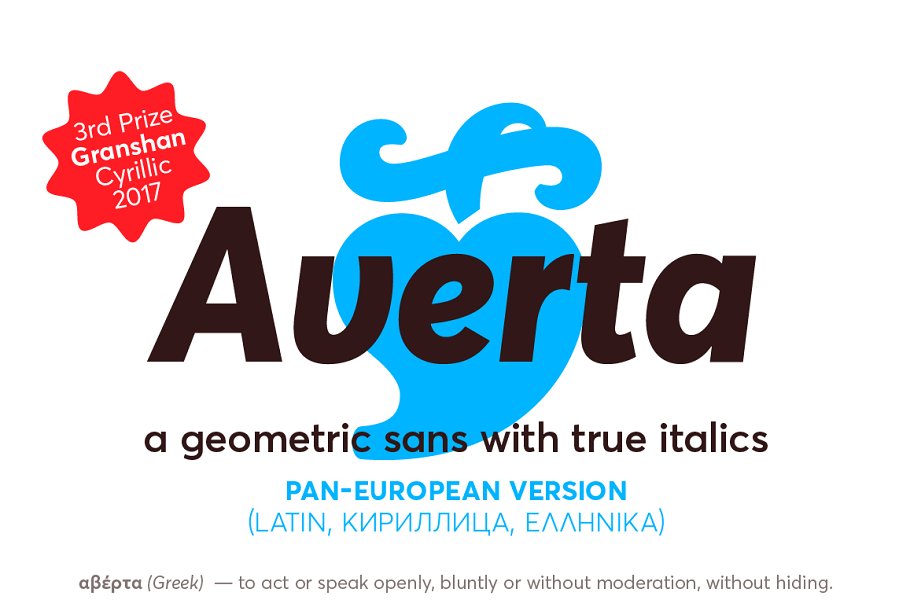
About the Averta PE Latin Greek Cyrillic Font
Bringing together features from early European grotesques and American gothics, Kostas Bartokas’ Averta (Greek: ‘αβέρτα’ – to act or speak openly, bluntly or without moderation, without hiding) is a new geometric sans serif family with a simplistic, yet appealing, personality, The purely geometric rounds, open apertures, and its low contrast strokes manage to express an unmoderated, straightforward tone resulting in a modernist, neutral and friendly typeface
Averta is intended for use in a variety of media, The central styles (Light through Bold) are drawn to perform at text sizes, while the extremes are spaced tighter to form more coherent headlines, The dynamism of the true italics adds a complementary touch to the whole family and provides extra versatility, making Averta an excellent tool for a range of uses, from signage to branding and editorial design
Take advantage of Averta’s extended OpenType features including alternate glyphs, small caps, fractions, case sensitive forms, contextual alternates, oldstyle and lining (proportional and tabular) numerals, small cap numerals, numerators/denominators, superiors/inferiors, and a variety of symbols
This version of Averta (Pan-European) comes in eight weights with matching italics and supports over two hundred languages with an extended Latin, Cyrillic (Russian, Bulgarian, and Serbian/Macedonian alternates), Greek and Vietnamese character set, You can find the Cyrillic version (Latin, Cyrillic only) here:https://creativemarket